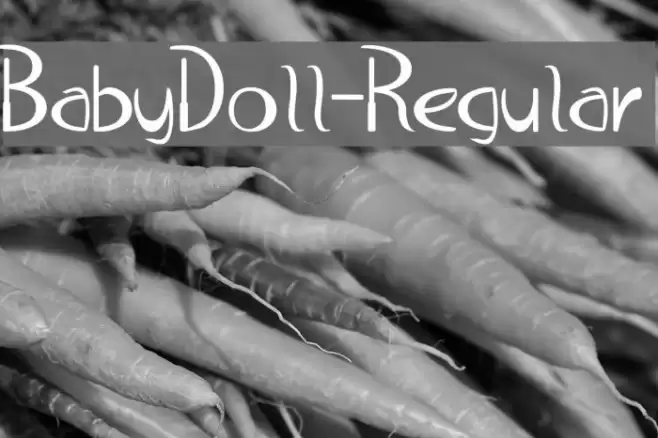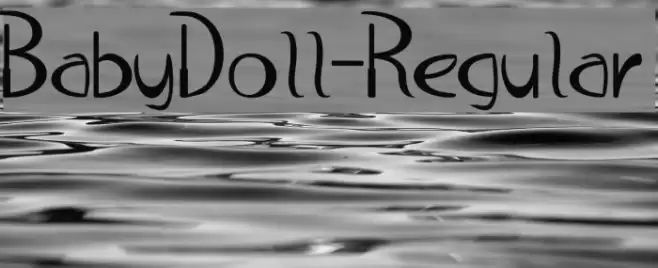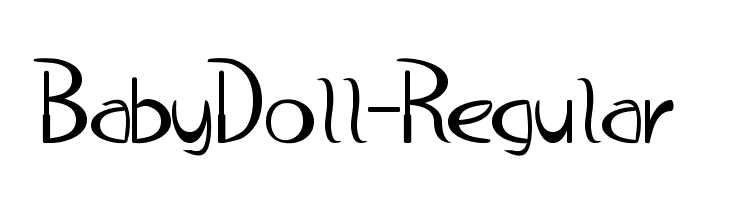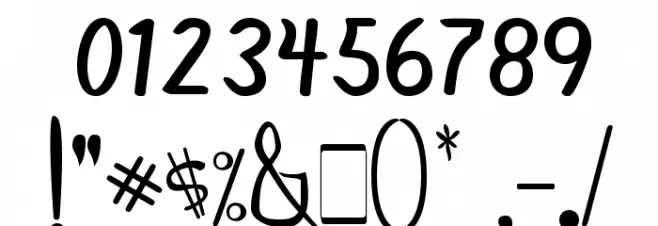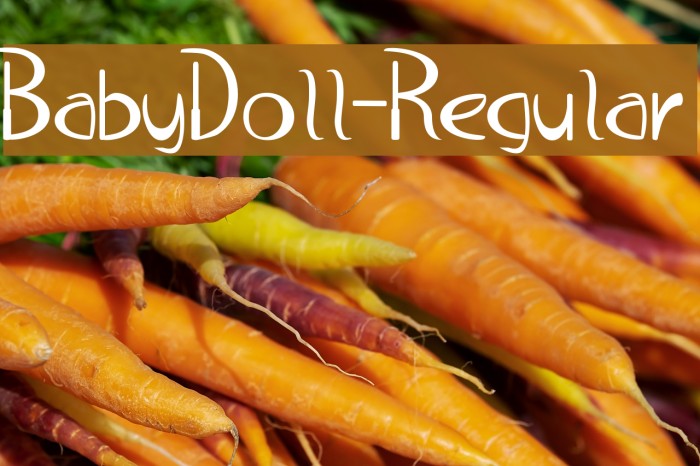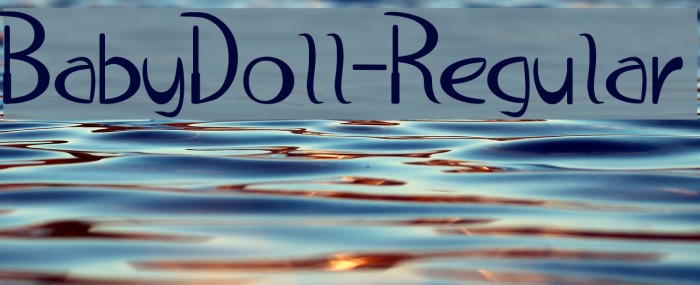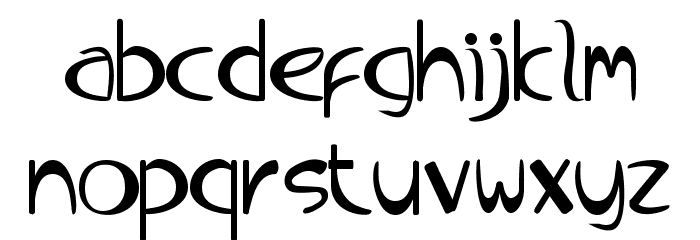
BabyDoll-Regular Font
BabyDoll-Regular Description
This font features a playful and whimsical design, characterized by its unique and irregular shapes. The uppercase letters have a tall and narrow structure, with some strokes extending beyond the baseline, adding a quirky touch. The lowercase letters maintain a similar playful style, with rounded edges and varying stroke thickness. The numbers are bold and consistent with the overall style, making them easily readable. Special characters are creatively designed, fitting seamlessly with the font's aesthetic. This font exudes a sense of fun and creativity, making it ideal for projects that require a lighthearted and engaging appearance.
A playful and whimsical font with unique, irregular shapes and a fun aesthetic from Uncategorized fonts.
- Proposed Projects: Ideal for children's books, playful branding, greeting cards, and creative posters.
- Overall Style: Playful, Whimsical, Creative